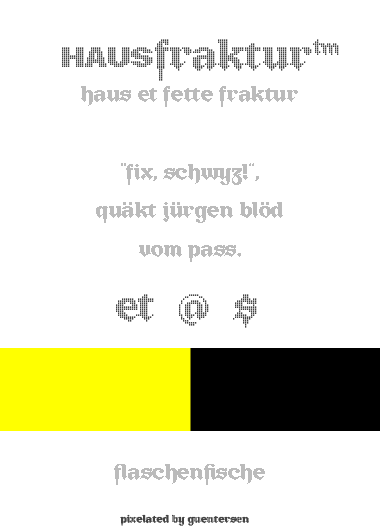
Excellent.
Terrific. Push out a sample Guentersen. The preview is not doing it justice.
the sample is in progress, but i think i have to re-think it ...
here is a sample ... and i have to re-think it once more.
do you have any suggestions for a fontname instead of hausfraktur?
BrokenPixel?
HAUStur?
FrakHAUS?
Good, gooder, goodest.
You've taken a brilliant font of yours and made it brillianter. I love it. I'm going to go have sex with the @ now.
please check the numerals. comments welcome.
what do you think of "breed"? or maybe something completely different ("monty"?)
I know, I know...HAUSblend.
I agree with thalamic, the @ is gorgeous. And, the numbers are superb as well.
The Old Style numerals are lovely, guentersen! And I like the name Breed, by the way. I don't think it's taken yet. (Although MyFonts lists a display face called Mixed Breed.)
this is really excellent
guentersen, you pixel block master! its a beauty.
Hmm... HausBreed.
superb!
Lovely! The lower case "z" makes me weak in the knees, it's that good.
great!!!
i just changed to HAUSblend
I just step into a comment you made on an another font... so I check your portfolio... and this font is realy good
I love black letter and this work is GREAT Bravo
marvelous !
Missed this first time round - well found Upixell. A really good looking fraktur and very useable. Gets my 10
HAUSblendby guentersen